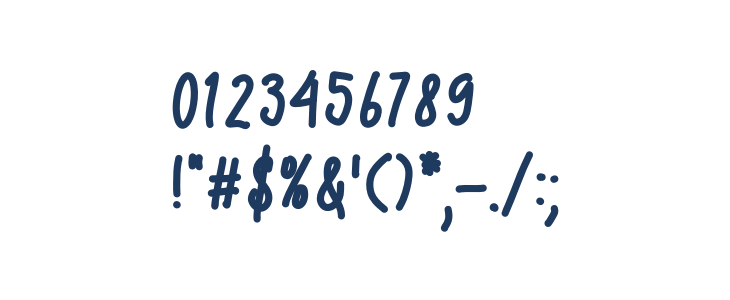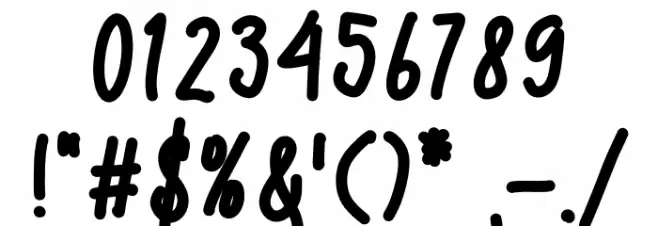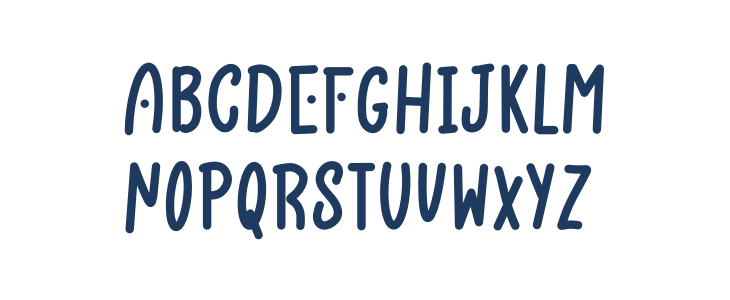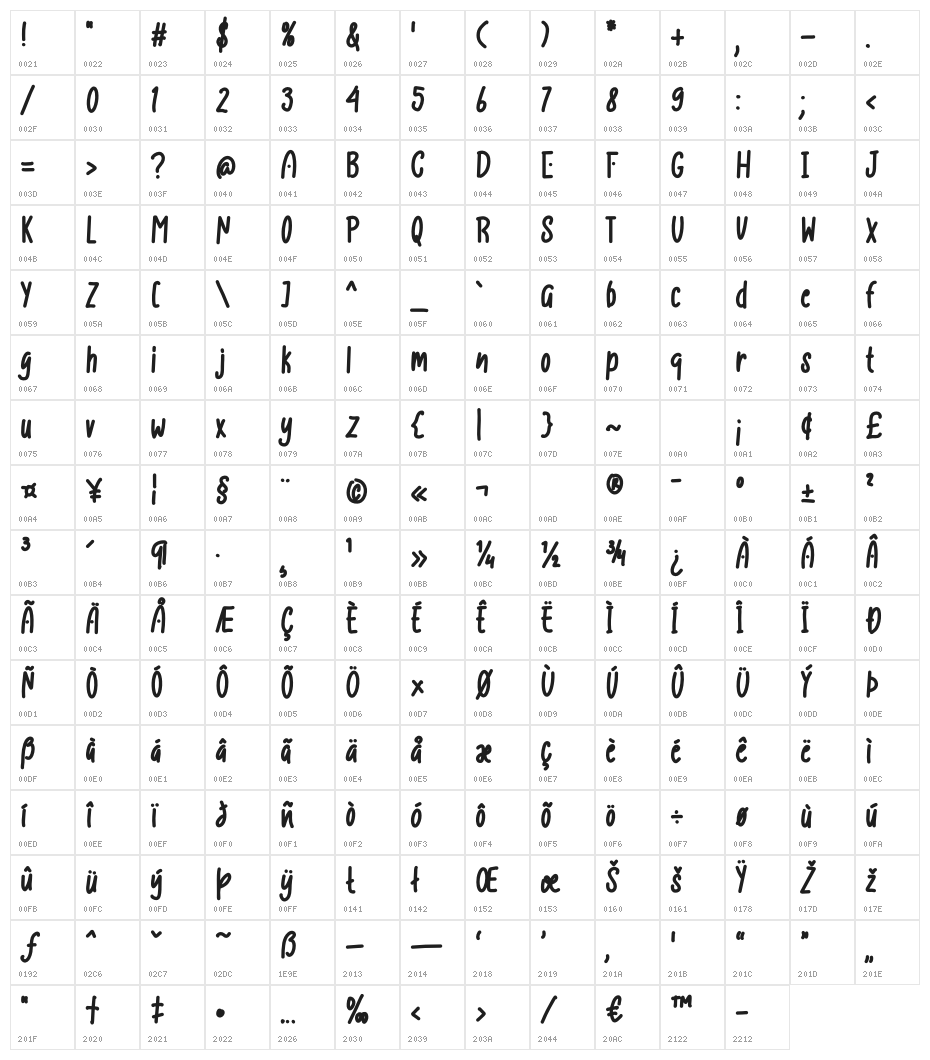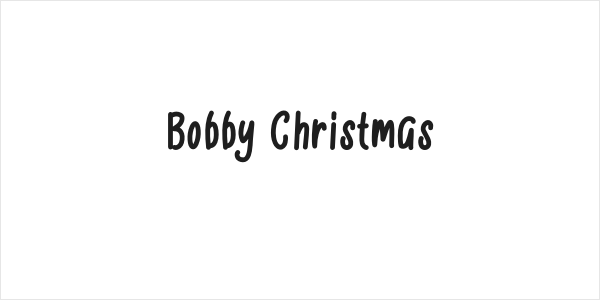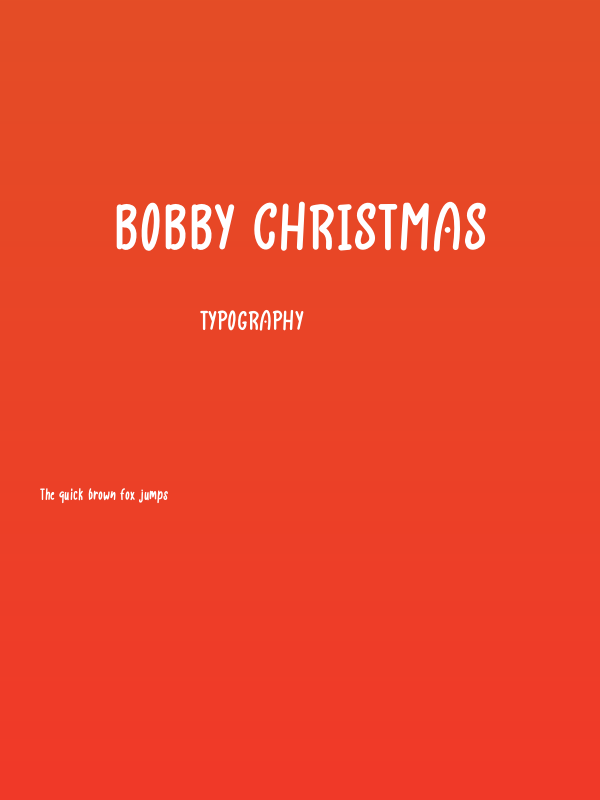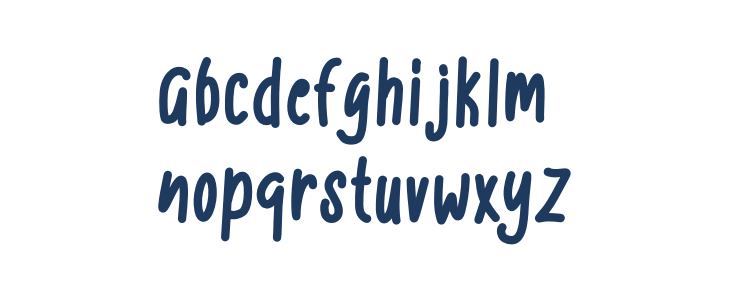
Bobby Christmas Font
Bobby Christmas Description
A playful, handwritten sans-serif font with rounded edges and irregular, organic letterforms. The strokes are consistent in thickness, giving a friendly and informal appearance. The characters are slightly condensed, and the overall style is casual and approachable.
| Overall Style | Playful, Informal, Handwritten |
| Use Case | Headlines, Posters, Greeting cards, Informal branding |
| Proposed Projects | Greeting cards, children's books, posters, invitations, branding for playful or informal products. |